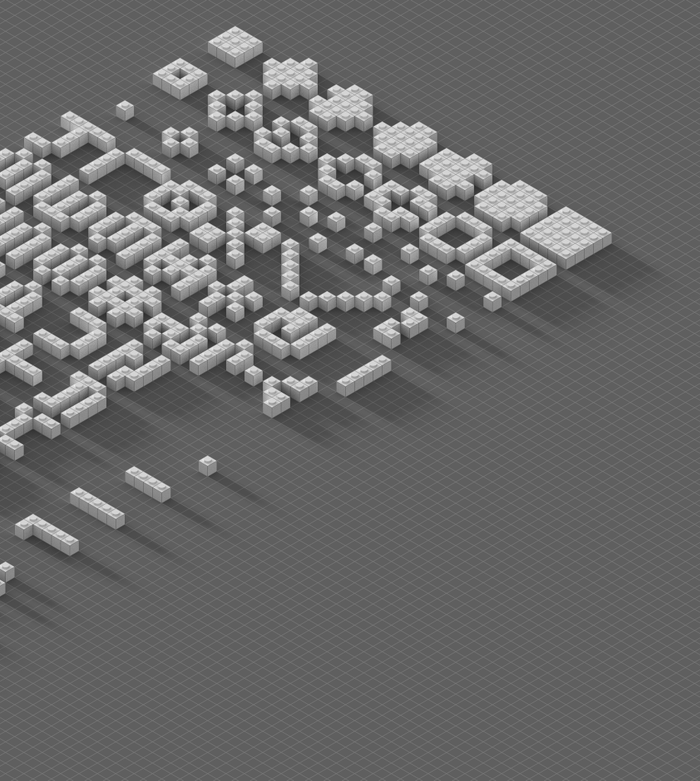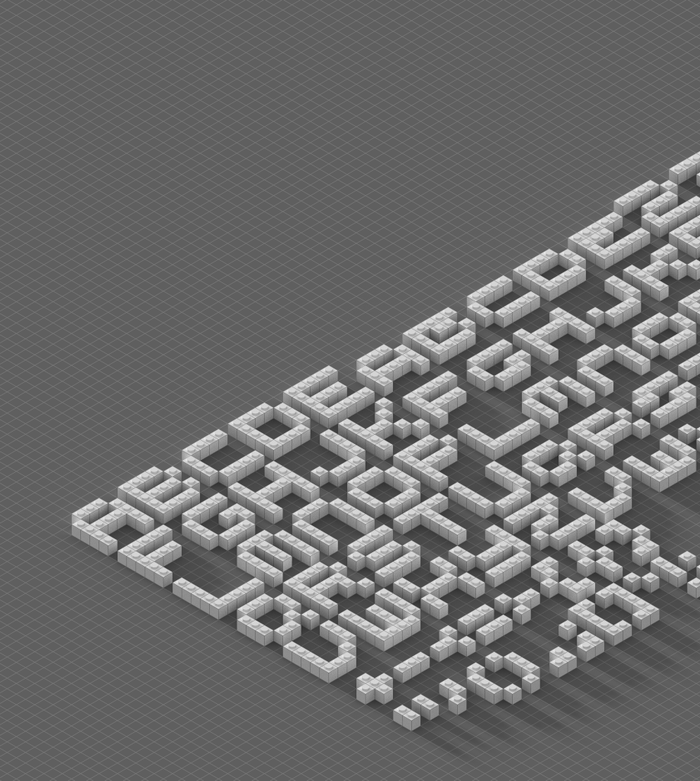
The original shadows can be added via CSS (in a web browser) for example. I added a rustic image generator in the last characters (fanciful codepoints [U+2776-277C;U+2780-2793], besides card game symbols). X and Y spacing: 2 pixels. Proportional width and blocky layout preserved. Cheers to cablecomputer for (t)his “forgotten” font… :-)
• I was really impressed by Ant Attack. A pity the author Sandy White (innovative assembly programmer and early digital voxel artist), could not introduce us to 3D ones like yours at that time… Ditto in the sequel Zombie Zombie the next year, with a 4x5 and 5x5 text ("©AS" and "SPACEMAN WAS HERE !"). The first 'map' (once pasted) can be seen as a wink to the former groundbreaking (horror-survival) video game title. {Of course, Q*bert was showing this isometric path one year before.}